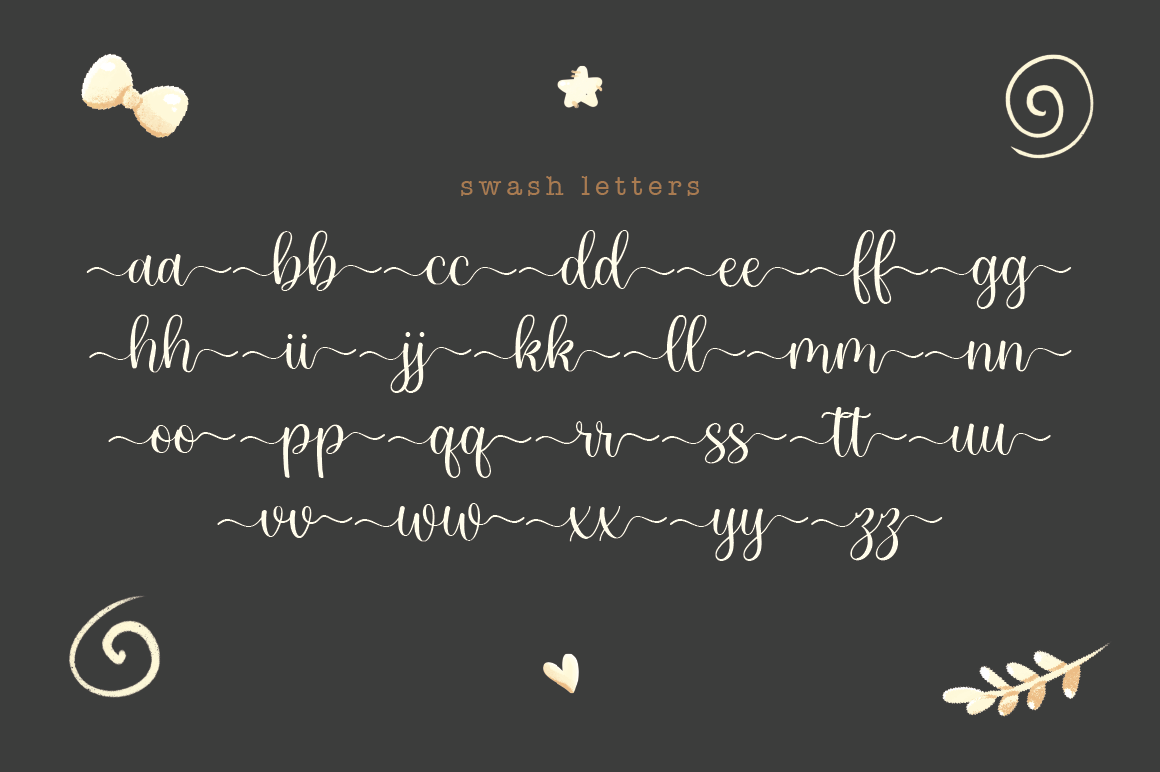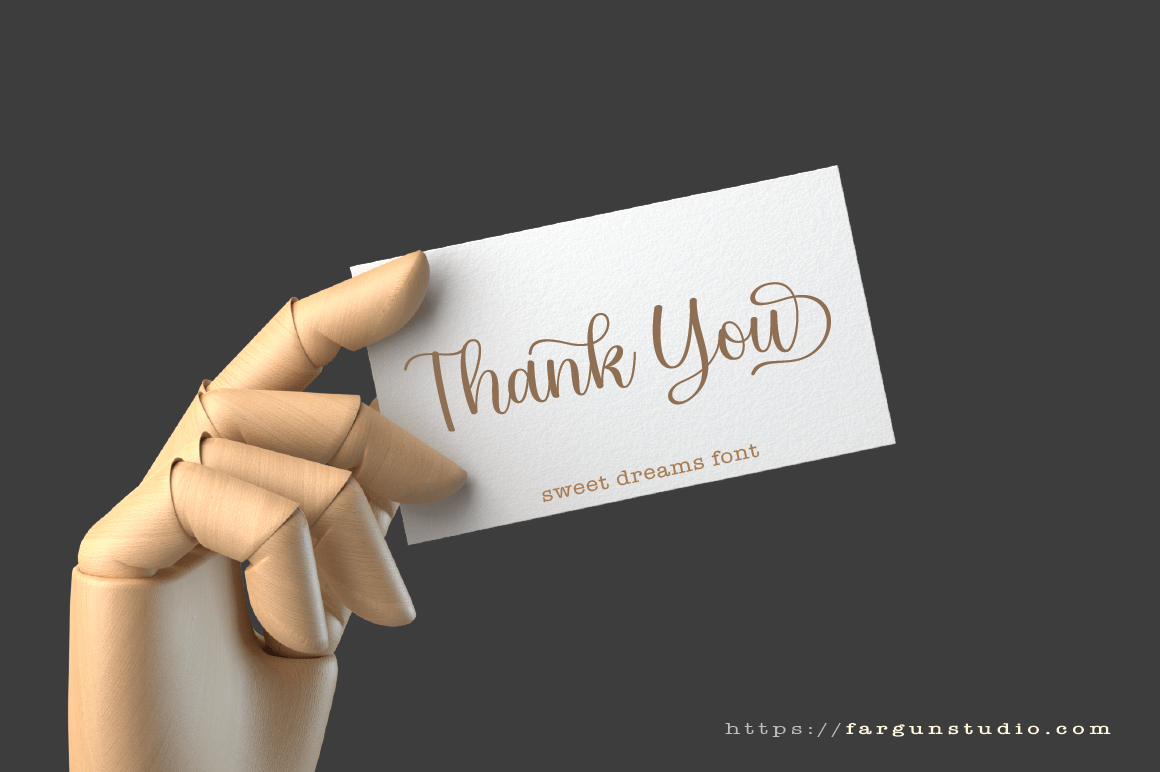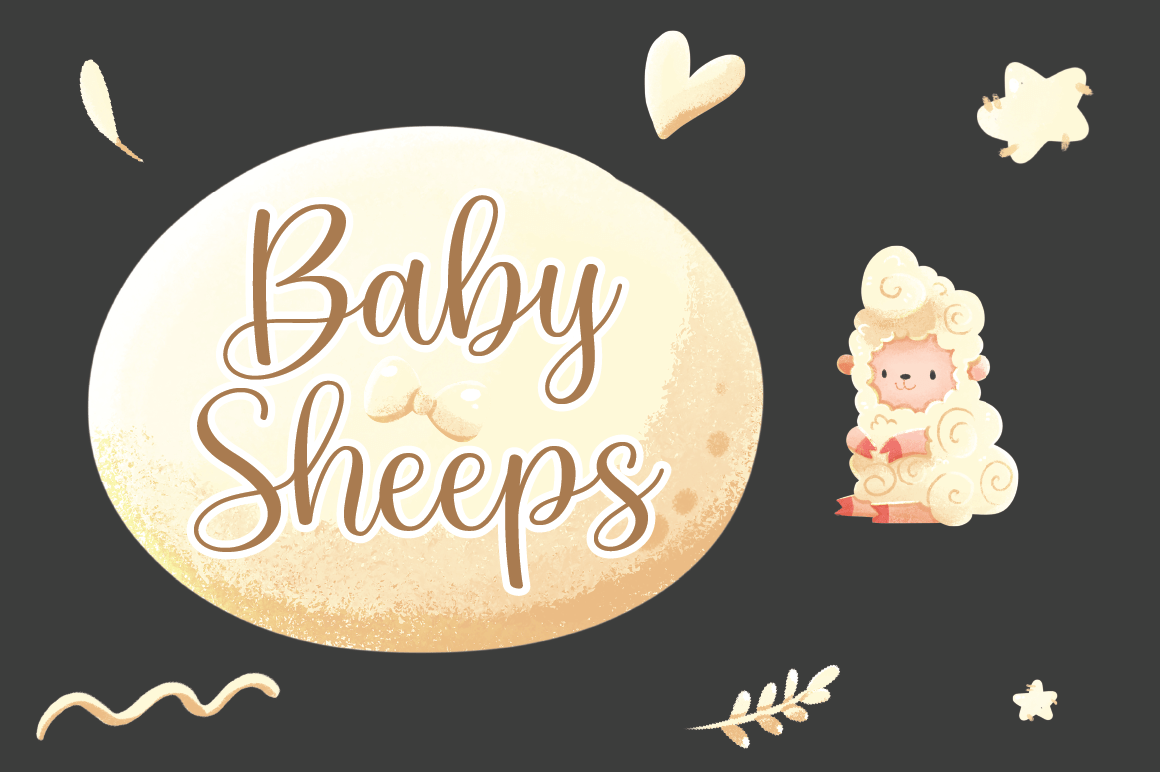
About Sweet Dreams
Sweet Dreams! A new fresh and modern hand-lettered font with decorative characters and a dancing baseline. So beautiful on invitations like handicraft, greeting cards, branding materials, business cards, quotes, posters, and more design concepts. Features:…